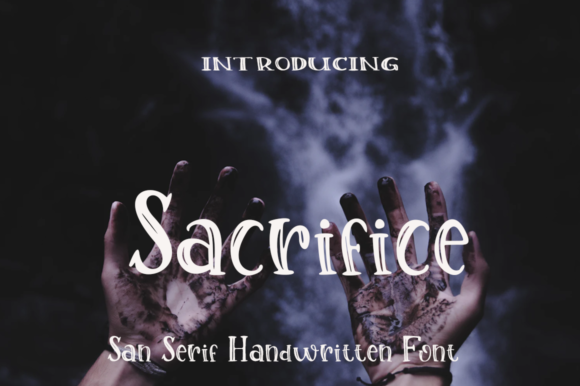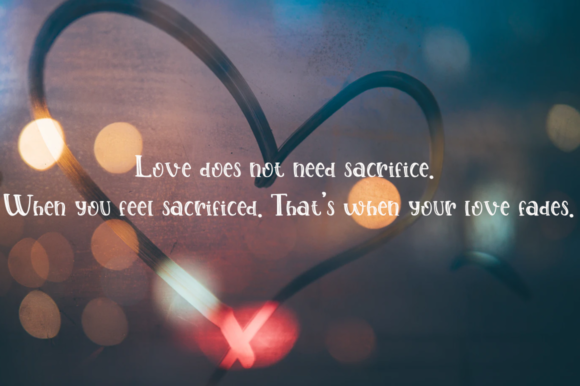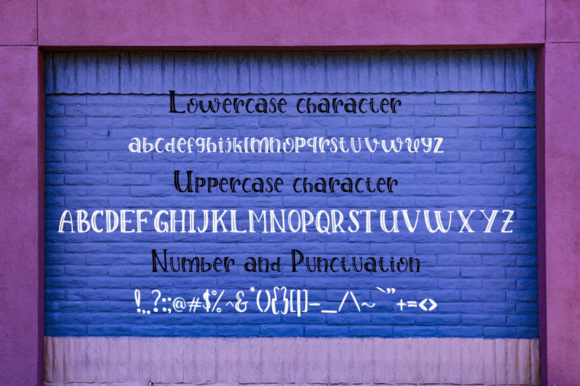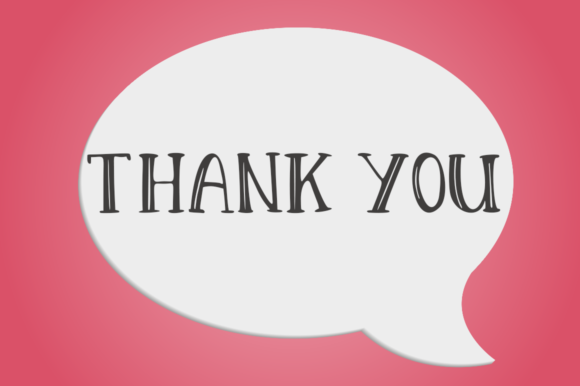
Sacrifice Font
About Sacrifice Font
Sacrifice is a fun and beautiful handwritten font. Fall in love with its authentic feel and use it to create gorgeous wedding invitations, quotes, t-shirt designs, branding, children’s designs, logos, social media posts, and much more!